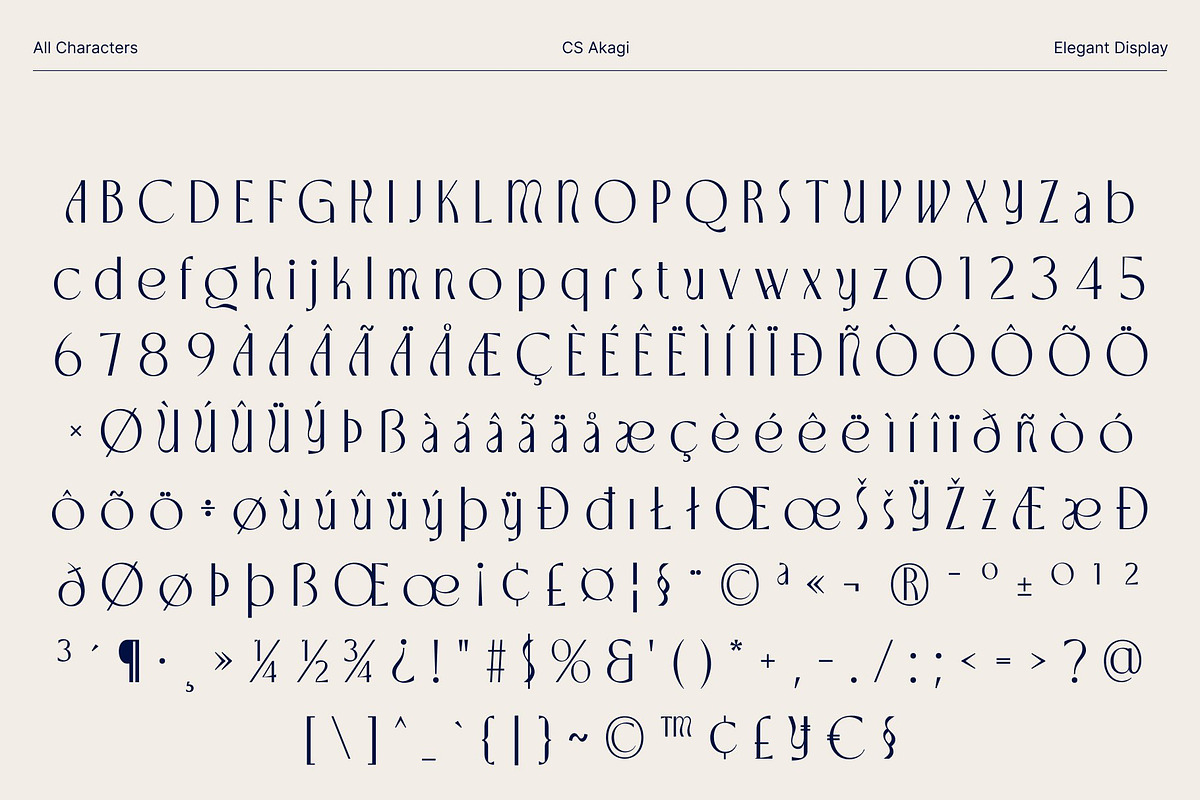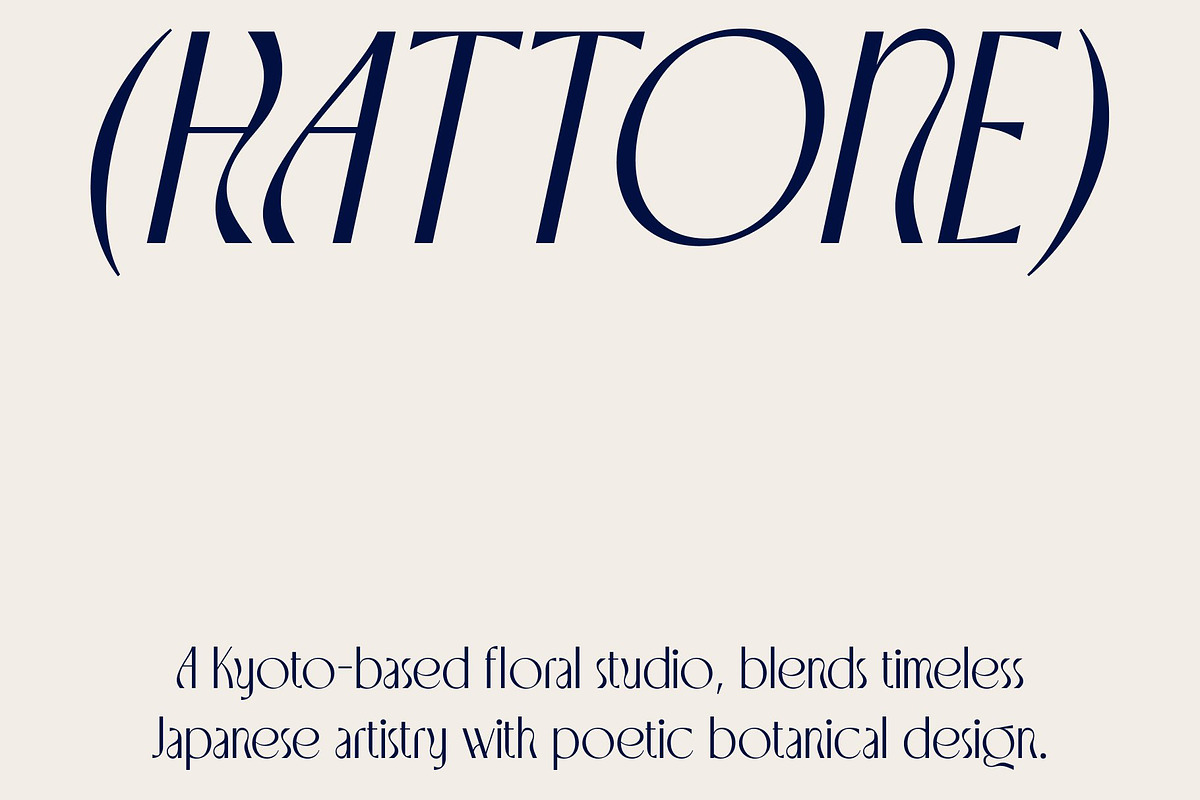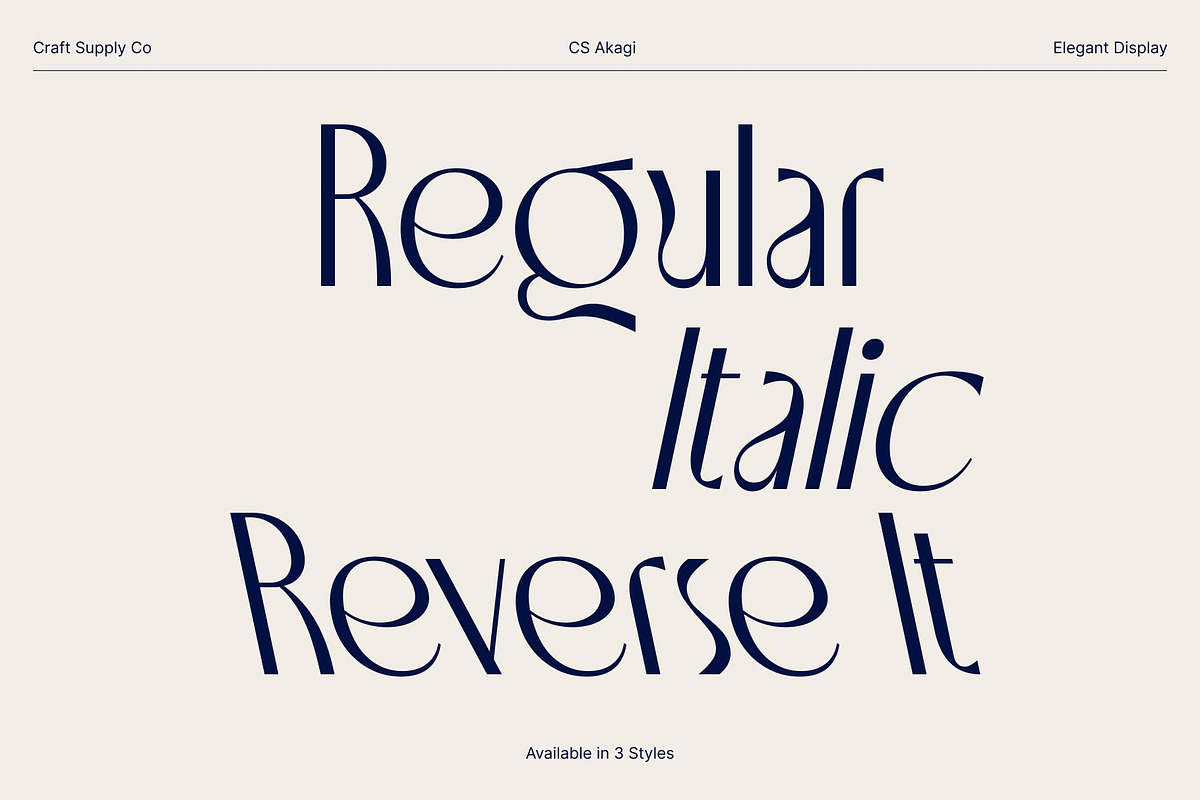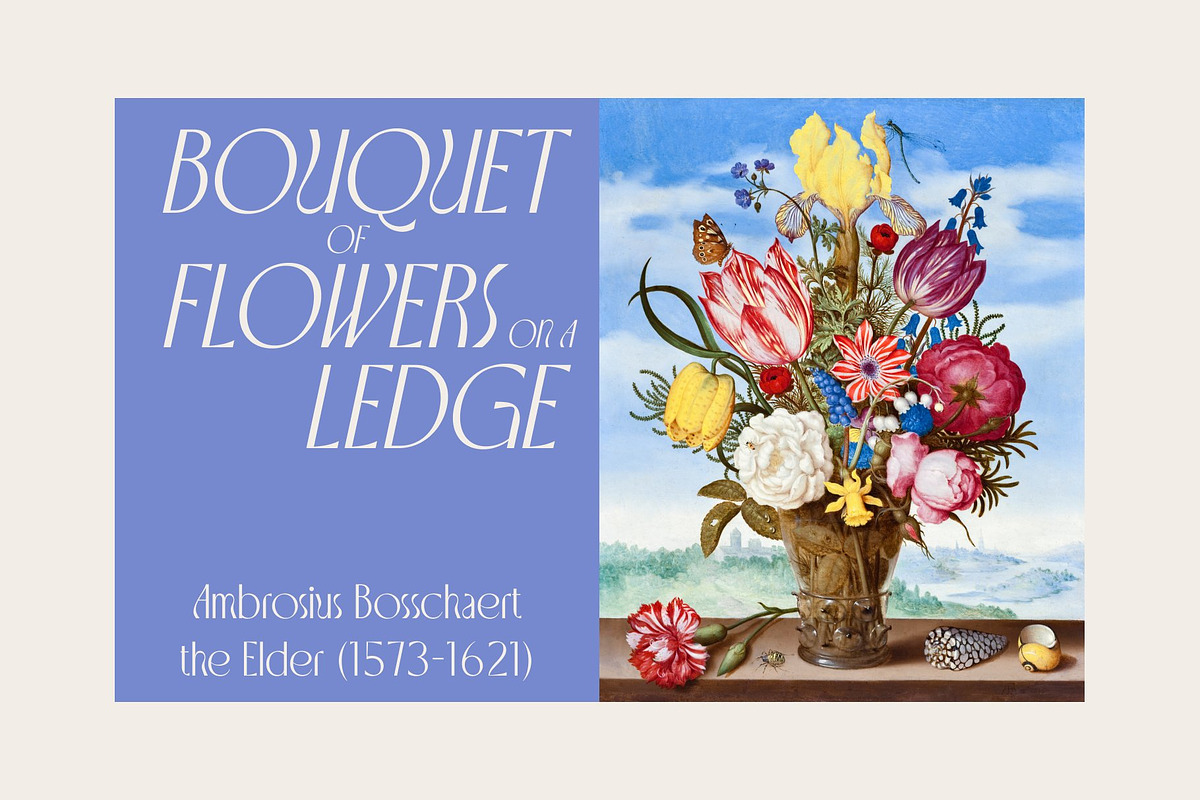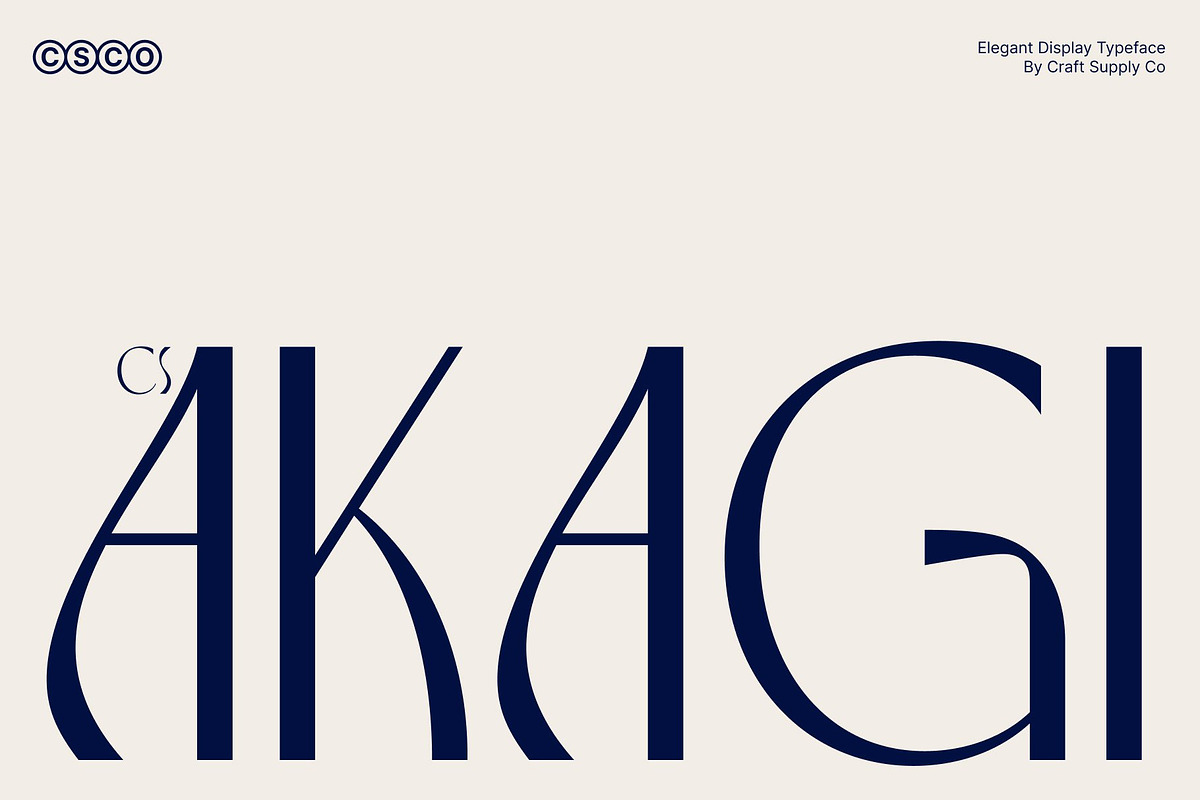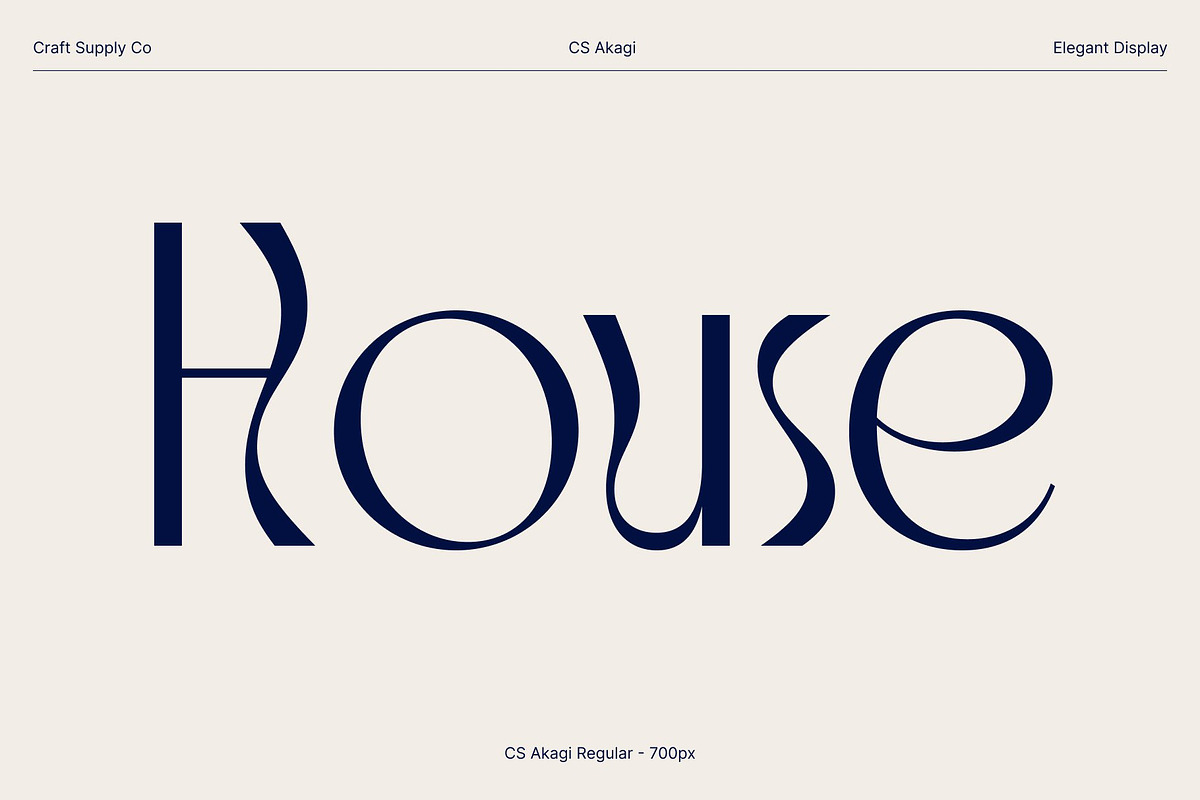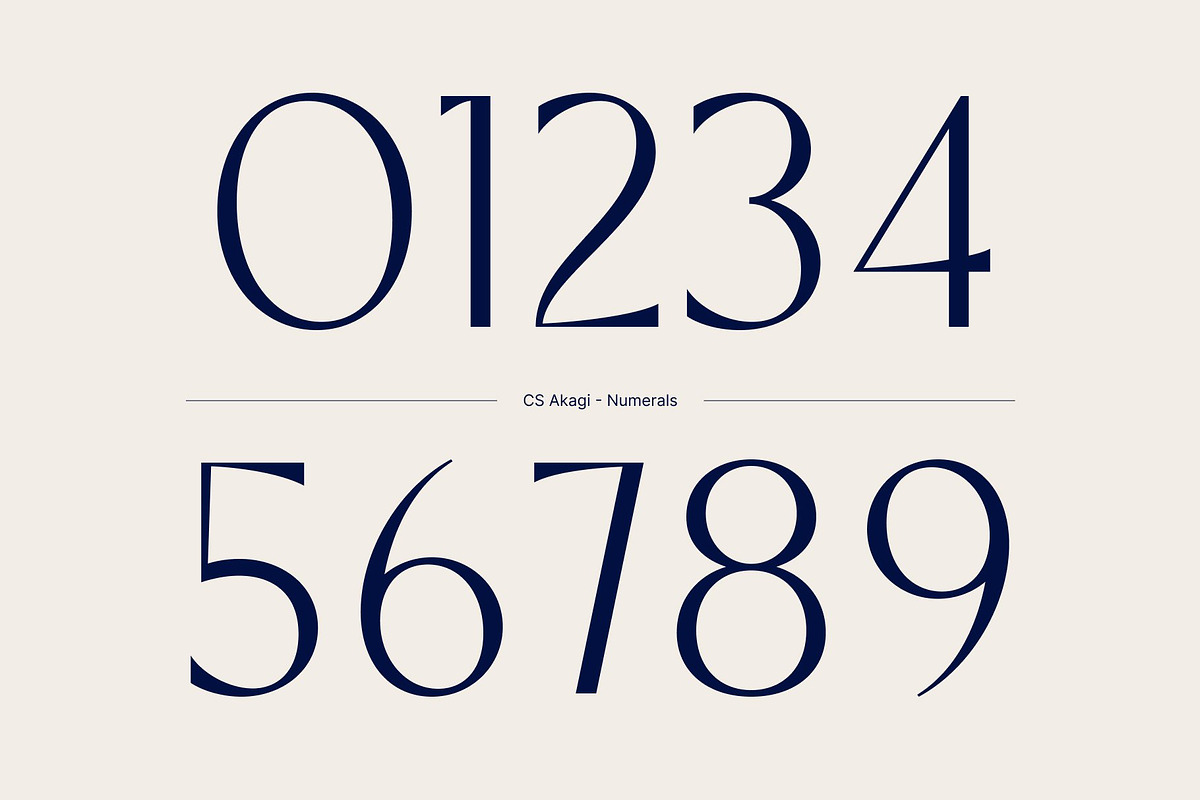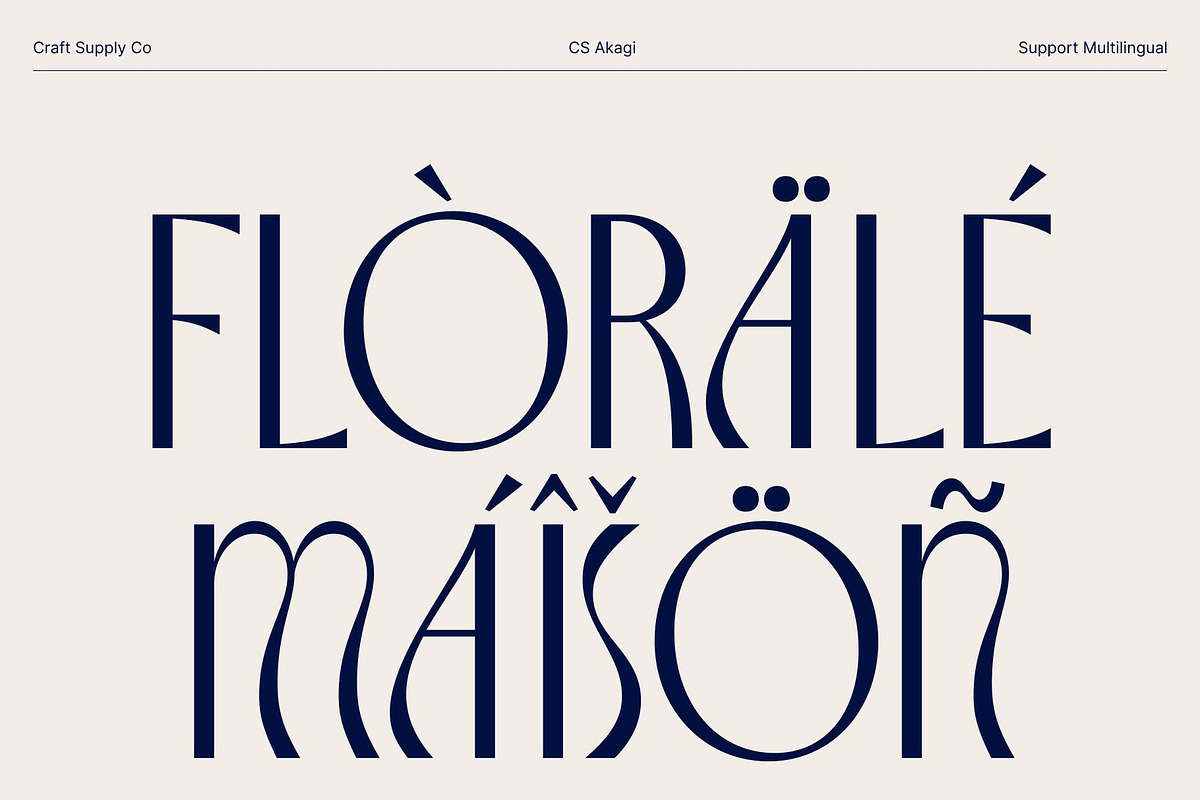
CS Akagi – Elegant Sans Serif
CS Akagi – Elegant Flow with Art Nouveau Sophistication
Elegant Sans Serif Font with Artistic Character This is an elegant sans serif font designed with refined curves that create a high-end and sophisticated appearance. Inspired by the organic flow of Art Nouveau, this font blends fluid motion with clean structure, resulting in a typeface that feels both artistic and contemporary.
Organic Curves with Quirky Elegance The refined curves of this font give it a graceful, flowing rhythm that feels natural and expressive. Subtle quirks in the letterforms add character without sacrificing clarity, allowing the font to stand out while remaining elegant. This combination of organic movement and controlled geometry creates a harmonious balance between softness and structure, giving the font a memorable and stylish presence.
Classic and Modern Nuances in Perfect Harmony This font seamlessly blends classic sensibility with stylistic, geometric, and modern nuances. Its clean sans serif foundation ensures readability, while the artistic influences introduce warmth and sophistication. This thoughtful fusion makes the font feel timeless yet contemporary, allowing it to adapt effortlessly to both traditional and modern design contexts.
Perfect for Editorial, Fashion, and Premium Branding Designed for high-end creative use, this font is perfectly suitable for advanced book layouts, editorial design, packaging, fashion branding, and luxury visuals. Its elegant structure enhances long-form reading while maintaining a refined aesthetic in headlines and display text.
- CS Akagi Regular
- CS Akagi Italic
- CS Akagi Reverse Italic